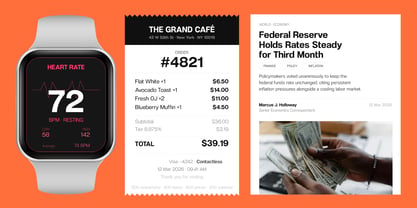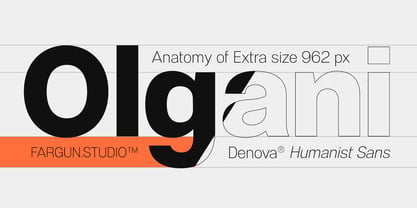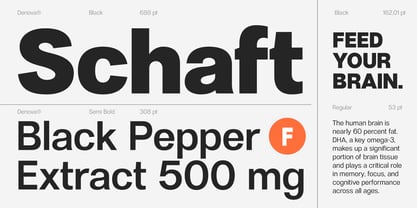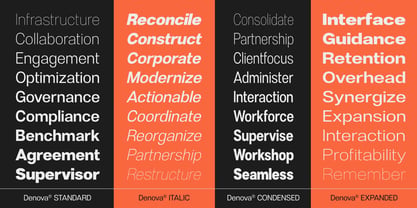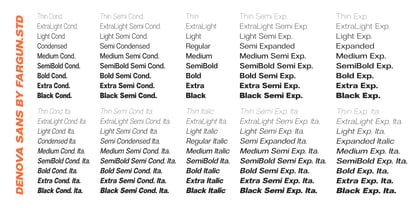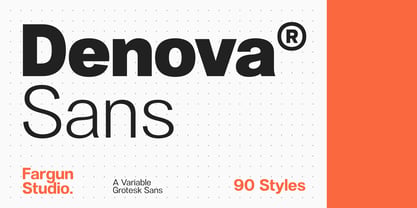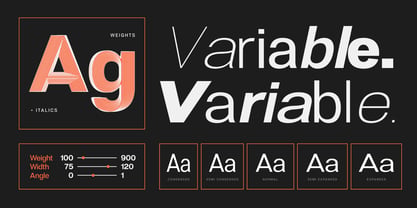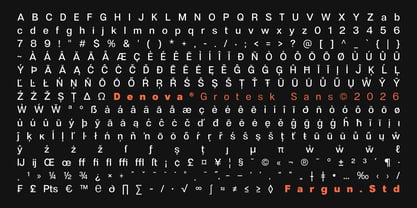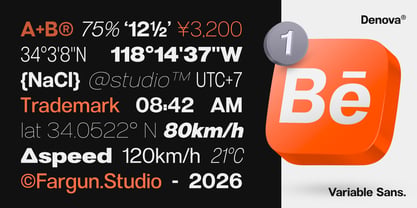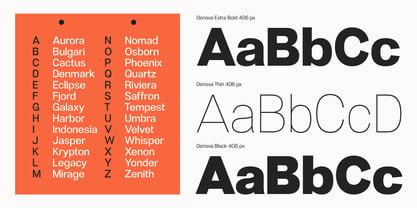
Denova
by Fargun Studio
The Denova Font Family was designed by Fajar Gunawan and published by Fargun Studio. Denova contains 91 styles and family package options. More about this family
Denova is a contemporary variable grotesque sans serif built for modern typography. Combining clarity with subtle warmth, it features refined proportions and open letterforms that ensure excellent readability across print and digital environments. Rooted in the classic grotesque tradition yet softened with gentle humanist curves, Denova presents a balanced personality, clean, professional, and approachable. This versatility makes it a strong choice for branding, editorial design, advertising, user interfaces, and corporate communication. The family includes 90 styles with Upright and Italic variants, offering a wide spectrum of weights and widths. This extensive range allows designers to craft clear typographic hierarchies with confidence, from impactful headlines to comfortable body text. Carefully balanced spacing, controlled contrast, and precise detailing give Denova a refined character that performs beautifully in both expressive and functional design contexts. Designed as a flexible typographic system, Denova adapts effortlessly to the demands of contemporary design.
Designers: Fajar Gunawan
Foundry: Fargun Studio